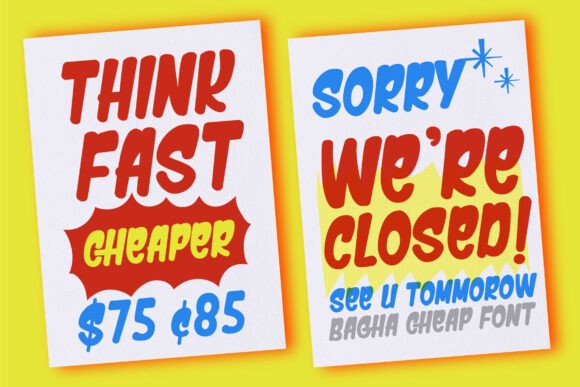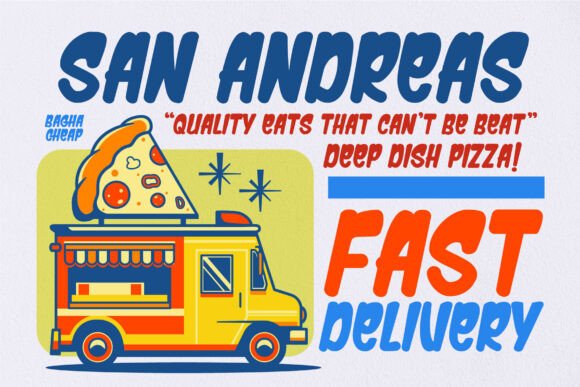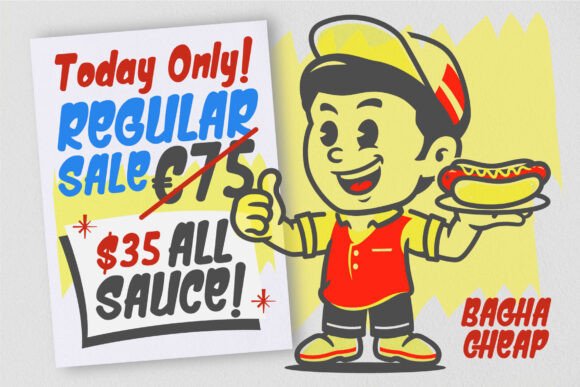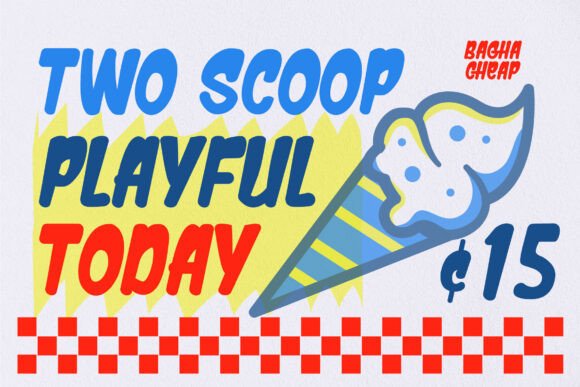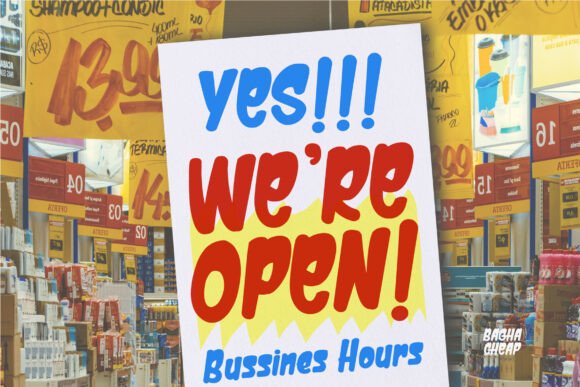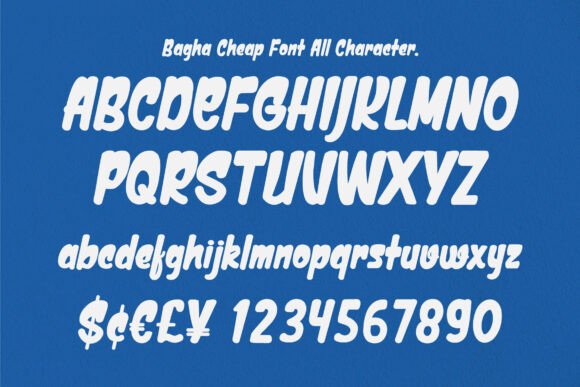
Introducing Bagha Cheap Font: The Perfect Handlettered Solution for Your Design Needs
Are you on the hunt for a unique and stylish font to elevate your designs? Look no further than Bagha Cheap Font! This beautifully crafted handlettered font is specifically designed for those who want to add a personal touch to their product information, price tags, and more. Inspired by the classic signs and posters found in markets, Bagha Cheap combines the best of freestyle and bold typography to create a truly one-of-a-kind look.
The Inspiration Behind Bagha Cheap Font
Bagha Cheap Font draws its inspiration from the vibrant and bustling markets that line our streets. The font’s creator sought to capture the essence of the hand-painted signs and posters that are often used to display product information and prices. The result is a font that exudes a sense of nostalgia and charm, while still being highly legible and easy to read.
Key Features of Bagha Cheap Font
- Handlettered style: Bagha Cheap Font boasts a beautifully handlettered style that adds a touch of personality to any design.
- Easy to read: Despite its unique and artistic style, Bagha Cheap Font remains highly legible, making it perfect for use in product information, price tags, and more.
- Freestyle and bold: This font combines the best of freestyle and bold typography to create a truly eye-catching look.
- Versatile: Bagha Cheap Font can be used in a wide range of design applications, from crafting and DIY projects to commercial branding and advertising.
Unleash Your Creativity with Bagha Cheap Font
With Bagha Cheap Font, the creative possibilities are endless! Whether you’re a designer, crafter, or simply someone who loves to get creative, this font is the perfect tool to help you bring your ideas to life. Use it to:
- Create eye-catching product labels and price tags that stand out from the crowd.
- Design beautiful and unique typography for your website, social media, or marketing materials.
- Add a personal touch to your crafting and DIY projects, such as handmade cards, gift tags, and more.
Tips for Using Bagha Cheap Font
To get the most out of Bagha Cheap Font, here are a few tips to keep in mind:
- Experiment with different colors and textures: Add an extra layer of depth and interest to your designs by experimenting with different colors and textures.
- Play with font sizes and styles: Don’t be afraid to mix and match different font sizes and styles to create visual interest and hierarchy.
- Use it in combination with other fonts: Bagha Cheap Font pairs beautifully with other fonts, so don’t be afraid to get creative and experiment with different combinations.
In conclusion, Bagha Cheap Font is a versatile and stylish handlettered font that’s perfect for designers, crafters, and anyone looking to add a personal touch to their designs. With its unique blend of freestyle and bold typography, this font is sure to elevate your designs and help you stand out from the crowd. So why wait? Download Bagha Cheap Font today and unleash your creativity!